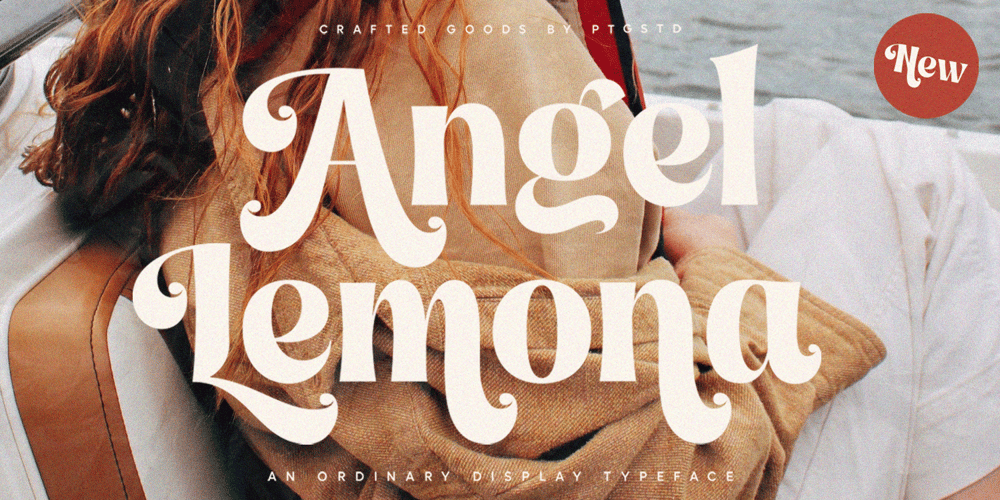
Angel Lemona Font Family was designed by Burhan Adiatma and published by pentagonistudio. Angel Lemona contains 1 styles and family package options. Angel Lemona Is An Ordinary Display Character Inspired By Hipster and Cheek Style.SOFTWARE REQUIREMENTS :Fonts and alternate : No special software required they may be used in any basic program /website apps that allows standard fonts That’s it folks! You can go ahead and get cracking :)Follow My Shop For Upcoming Updates Including Additional Glyphs And Language Support. And Please Message Me If You Want Your Language Included or If There Are Any Features or Glyph Requests, Feel Free to Send me A Message. Have a Good Day !